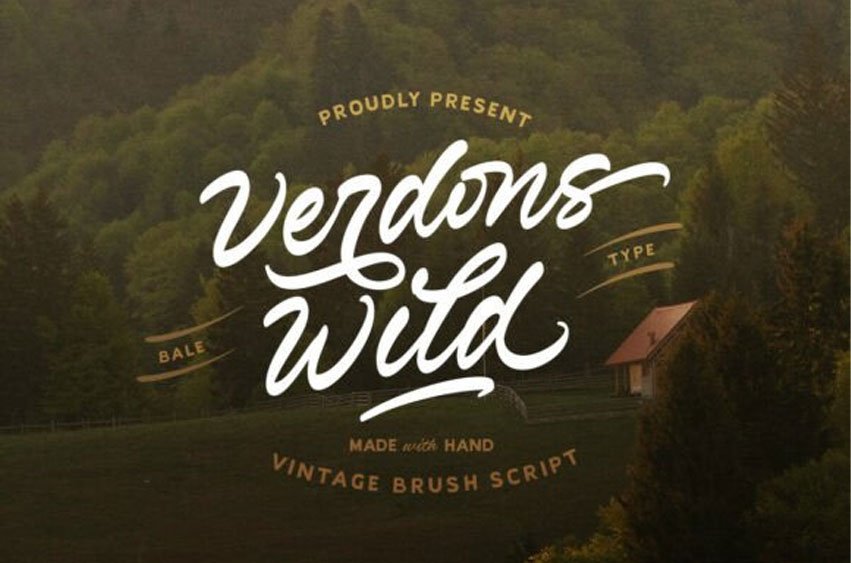
Verdons Wild Font is a powerful and assertive vintage brush script font, characterized by its incredibly bold weight, energetic flow, and textured, hand-painted appearance. The sweeping, dramatic connections and casual bounce give it an adventurous, organic, and nostalgic feel, perfect for outdoors or retro themes.
This typeface is made by hand and is ideal for custom t-shirts, vintage logos, masculine branding, high-impact packaging, and any project that needs a strong, authentic, and rugged hand-lettered touch.